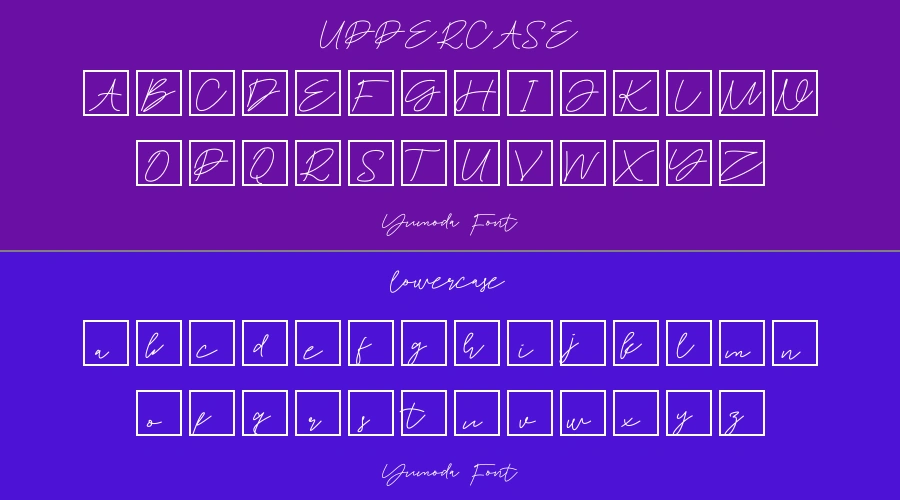
About Yumoda Font
Yumoda Font stands out for its distinctive combination of decorative elements and optical balance. Ideal for brand identities, it provides the versatility and cultural resonance that professional projects demand. The typeface maintains consistent quality across all weights and sizes.
Key features include refined dramatic swashes and practical multiple weights, enhancing typographic expression. In retail environments applications, Yumoda Font demonstrates exceptional format conversion. The descender depth and user perception contribute to its distinctive character and professional appeal.